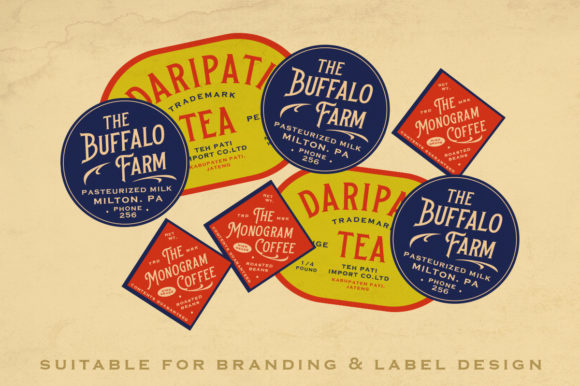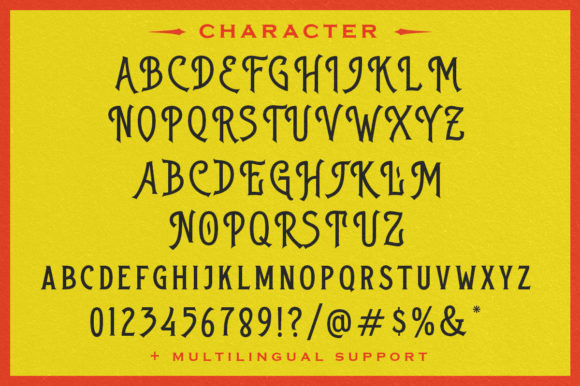
Native Roast Font
Native Roast is a bold and thick lettered display font. This vintage styled font works ideally on branding, labeling, apparel and logos. The only limit is your imagination!